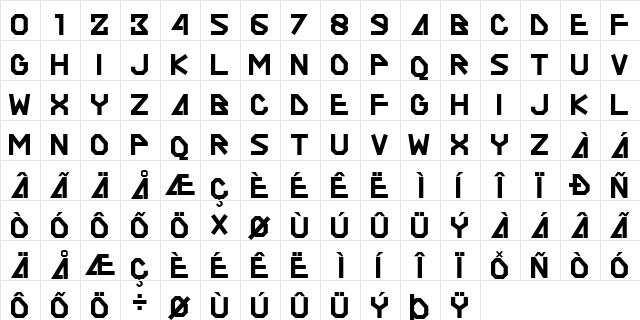
AGOXES GAME Regular
| Designer | Sealoung+Saiful Anwar |
Design Context for AGOXES GAME Typeface
AGOXES GAME is a composed and adaptable typeface that performs quietly and consistently across a wide range of design contexts.